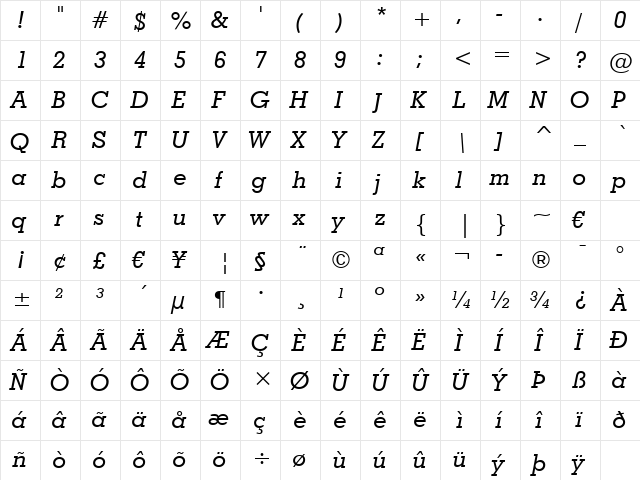
GeoSlab703 Md BT Medium Italic Font Preview
GeoSlab703 Md BT Medium Italic
Design Context for GeoSlab703 Md BT Typeface
GeoSlab703 Md BT features prominent, blocky serifs that give it a confident, grounded presence — equally at home in editorial settings and bold branding work. Its italic angle brings a sense of urgency and motion to the letterforms.
Suited to magazines, political campaign materials, bold packaging, and any setting where authority matters.
Pro Tip: Use GeoSlab703 Md BT for headlines and subheadings where its slab serifs can make an impression. It also holds up well in mid-size body copy thanks to its sturdy construction.